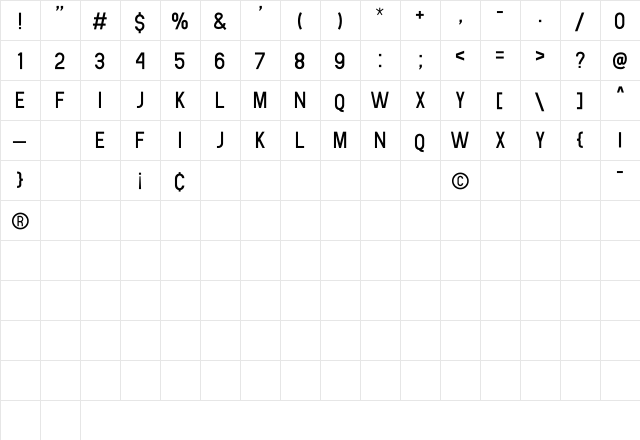
Human Regular
Design Context for Human Typeface
Human takes a measured approach to typography — its balanced proportions and neutral character make it a reliable workhorse for both digital and print work.